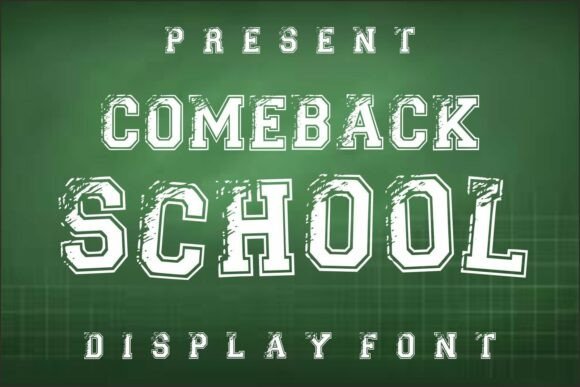
Introducing Comeback School Font: The Ultimate Sports Classic Display Font
In the world of typography, few fonts capture the essence of sports and athleticism as perfectly as Comeback School Font. This authentic sports classic display font is inspired by the bold and dynamic typography often seen in college sports branding. With its strong and commanding look, Comeback School Font is the perfect choice for designers looking to convey power, energy, and excitement in their work.
Key Features of Comeback School Font
- Bold and Dynamic Design: Comeback School Font features thick lines and sharp edges that give it a bold and dynamic look, perfect for capturing the energy and excitement of sports.
- Strong and Commanding: The font’s strong and commanding look makes it ideal for use in sports branding, advertising, and marketing materials.
- Inspired by College Typography: Comeback School Font takes its inspiration from the classic typography often seen in college sports branding, making it a great choice for designers looking to create authentic and nostalgic sports-themed designs.
- Highly Versatile: With its bold and dynamic design, Comeback School Font can be used in a wide range of design applications, from sports logos and branding to advertising and marketing materials.
The Benefits of Using Comeback School Font
So why choose Comeback School Font for your design projects? Here are just a few benefits of using this amazing sports classic display font:
- Instant Recognition: The bold and dynamic design of Comeback School Font makes it instantly recognizable, perfect for creating memorable sports logos and branding.
- Emotional Connection: The font’s strong and commanding look helps to create an emotional connection with audiences, making it perfect for use in advertising and marketing materials.
- Authentic Sports Feel: Comeback School Font’s inspiration from college typography gives it an authentic sports feel that’s perfect for designers looking to create sports-themed designs.
- Easy to Read: Despite its bold design, Comeback School Font is easy to read, making it perfect for use in a wide range of design applications.
Design Applications for Comeback School Font
So what can you use Comeback School Font for? The possibilities are endless! Here are just a few design applications where this amazing font shines:
- Sports Logos and Branding: Comeback School Font is perfect for creating memorable sports logos and branding that captures the energy and excitement of sports.
- Advertising and Marketing Materials: The font’s strong and commanding look makes it ideal for use in advertising and marketing materials, such as billboards, posters, and flyers.
- Sports Jerseys and Apparel: Comeback School Font is a great choice for designing sports jerseys and apparel, adding a bold and dynamic touch to any design.
- Social Media Graphics: The font’s bold design makes it perfect for use in social media graphics, such as Facebook and Twitter posts.
Tips for Using Comeback School Font
Here are a few tips for using Comeback School Font in your design projects:
- Use it Boldly: Comeback School Font is designed to be used boldly, so don’t be afraid to experiment with different font sizes and styles.
- Pair it with Other Fonts: The font’s strong and commanding look makes it a great choice for pairing with other fonts, such as sans-serif fonts for a modern look.
- Experiment with Colors: Comeback School Font looks great in a wide range of colors, so don’t be afraid to experiment with different color schemes and combinations.
In conclusion, Comeback School Font is an amazing sports classic display font that’s perfect for designers looking to capture the energy and excitement of sports. With its bold and dynamic design, strong and commanding look, and authentic sports feel, this font is sure to make a lasting impression. Whether you’re designing sports logos and branding, advertising and marketing materials, or social media graphics, Comeback School Font is the perfect choice.